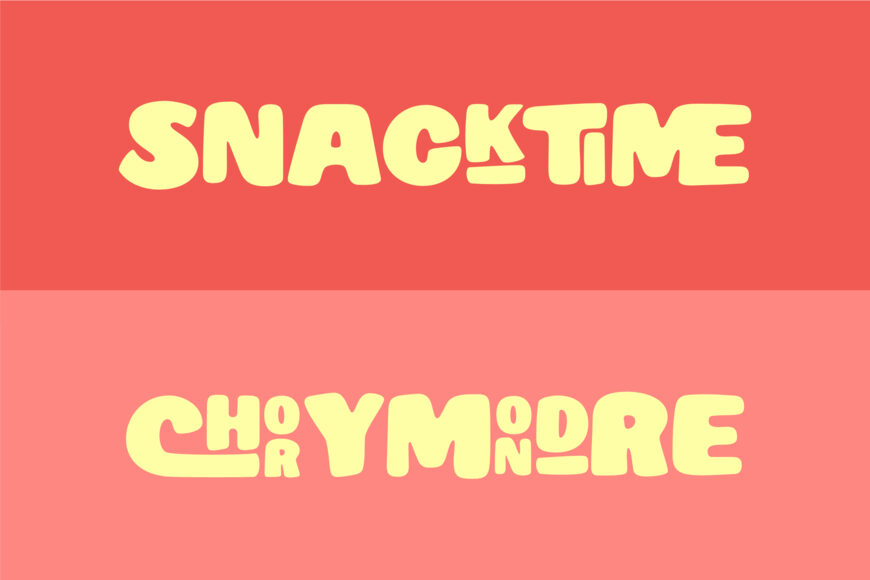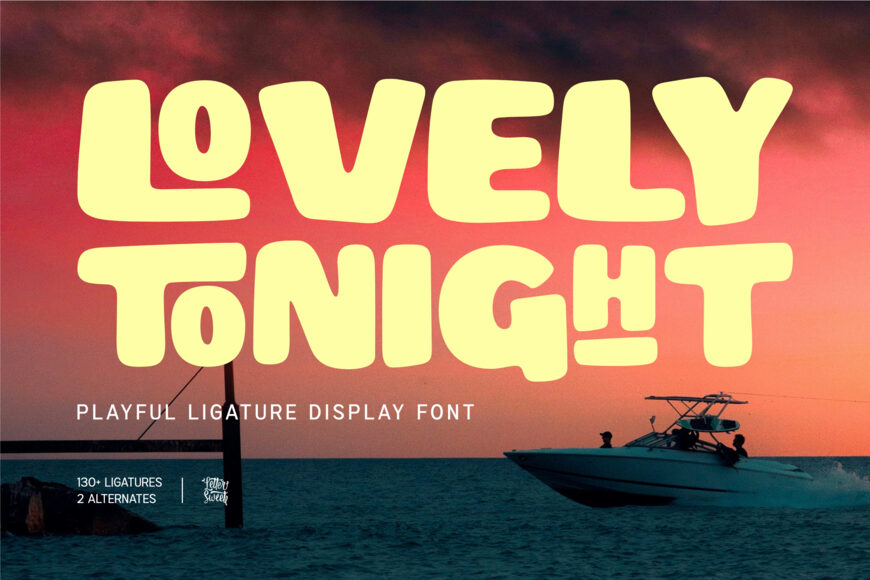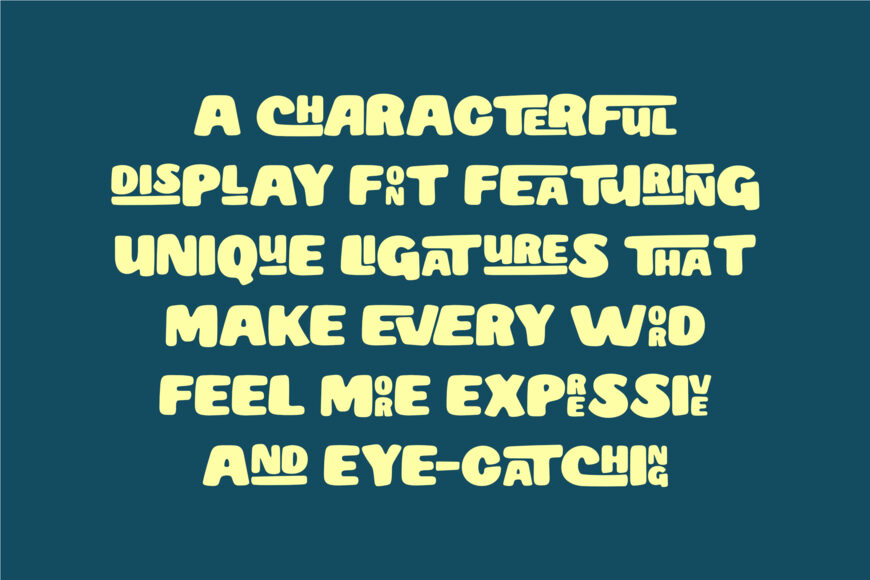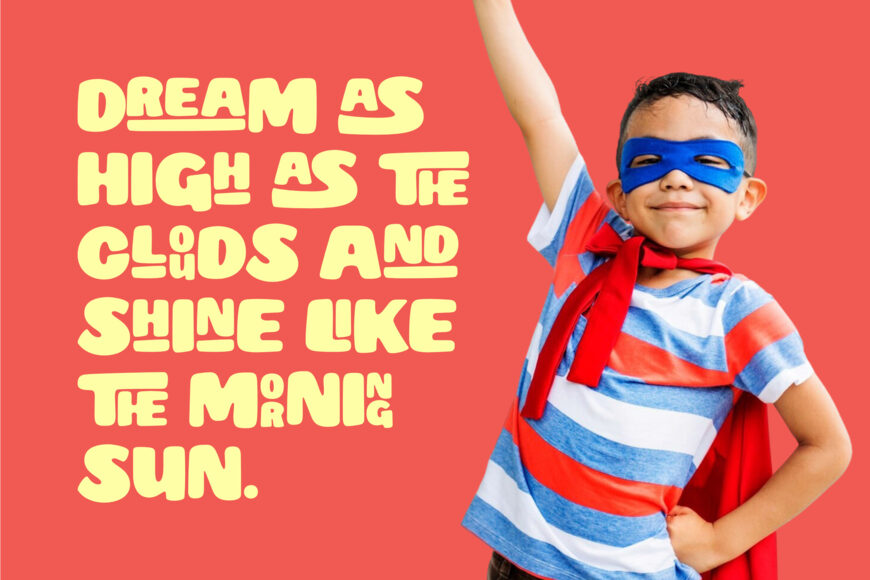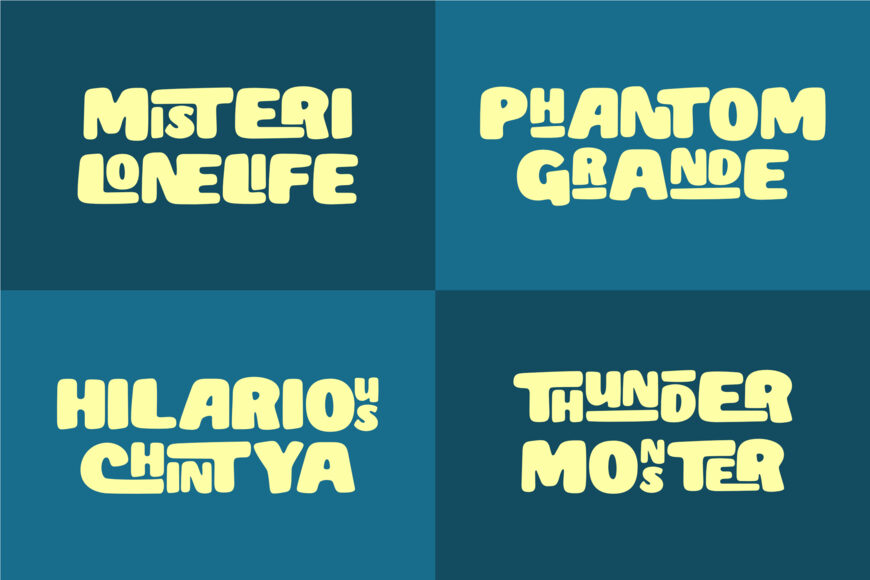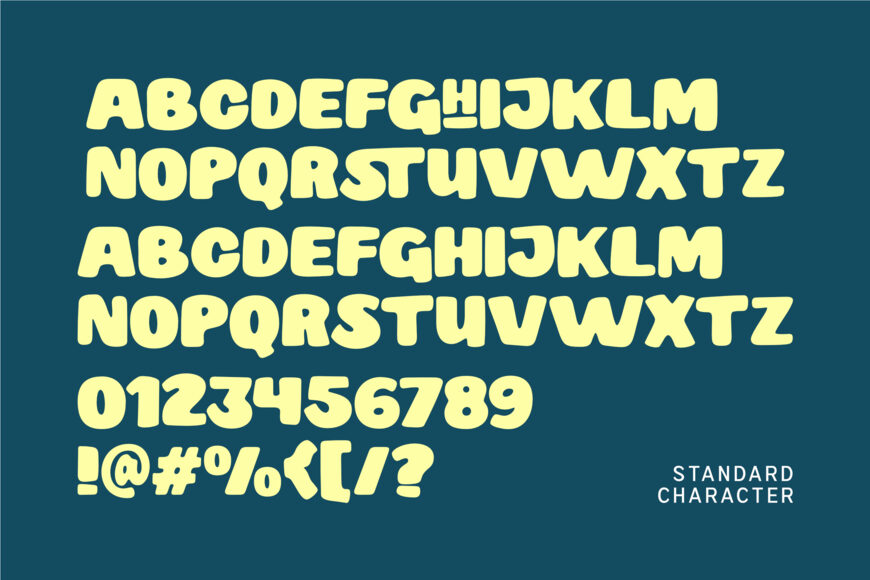
Lovely Tonight Font
Lovely Tonight is a playful display font featuring bold, softly rounded letterforms and unique ligatures that make every word feel more expressive. Its cheerful, friendly, and slightly retro personality is designed to turn ordinary titles into instant attention-grabbers.
Packed with more than 130 ligatures and 2 alternate characters (paid version), Lovely Tonight makes it easy to create distinctive, custom-looking typography without drawing every letter by hand. It is perfect for logos, branding, packaging, posters, social media, apparel, merchandise, children’s projects, and any design that needs a fun and memorable personality.